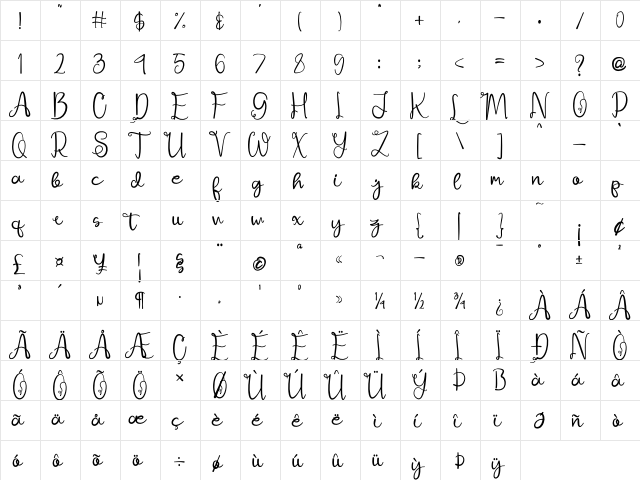
Ajuslly Regular
Design Context for Ajuslly Typeface
Ajuslly is a composed and adaptable typeface that performs quietly and consistently across a wide range of design contexts.